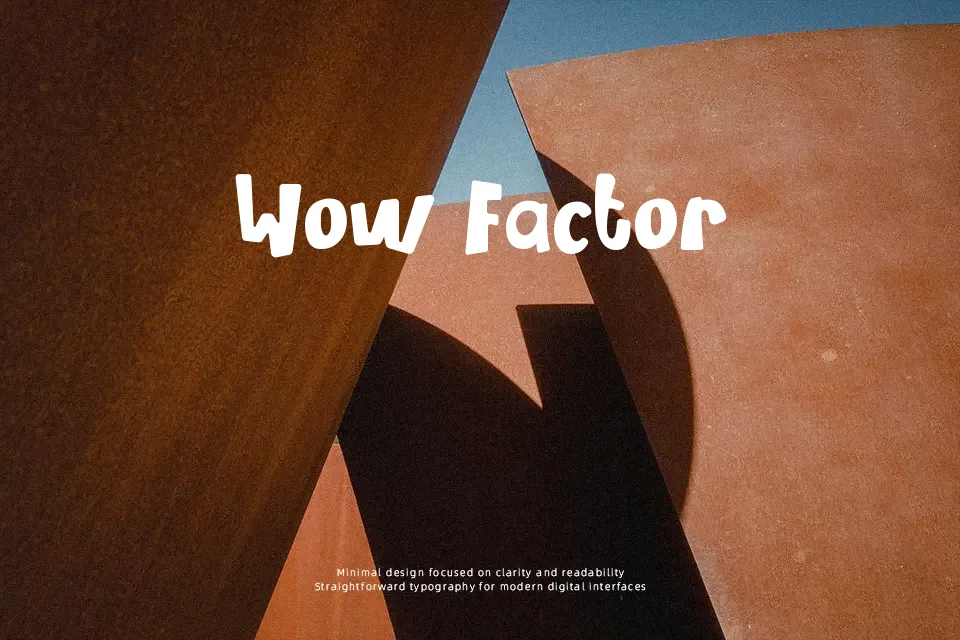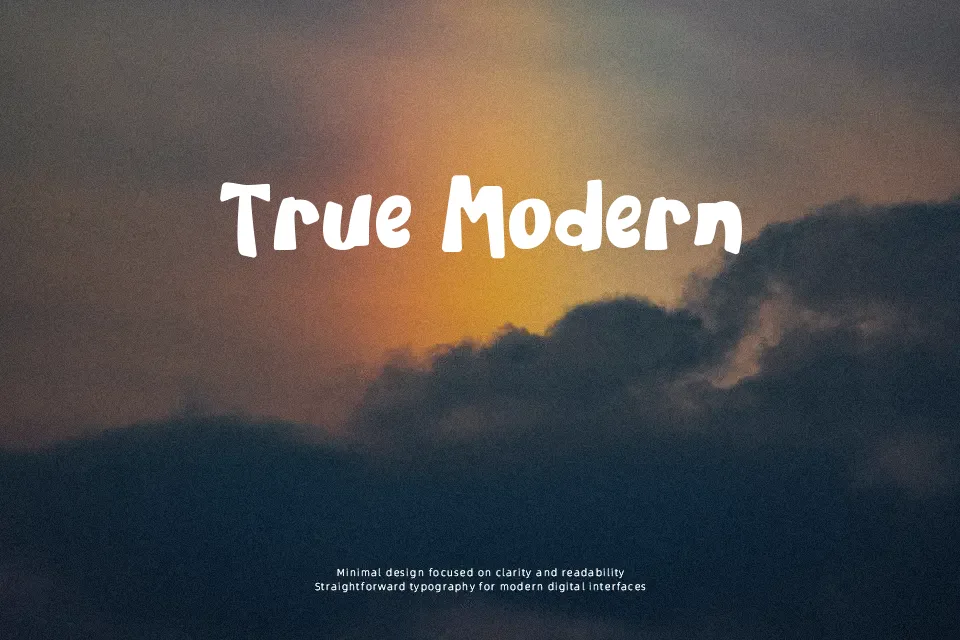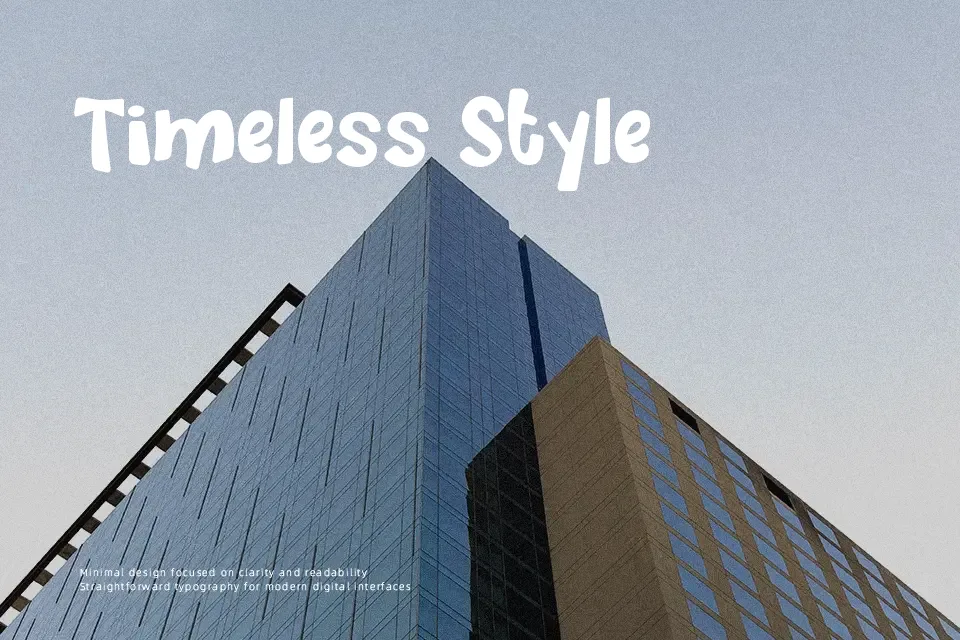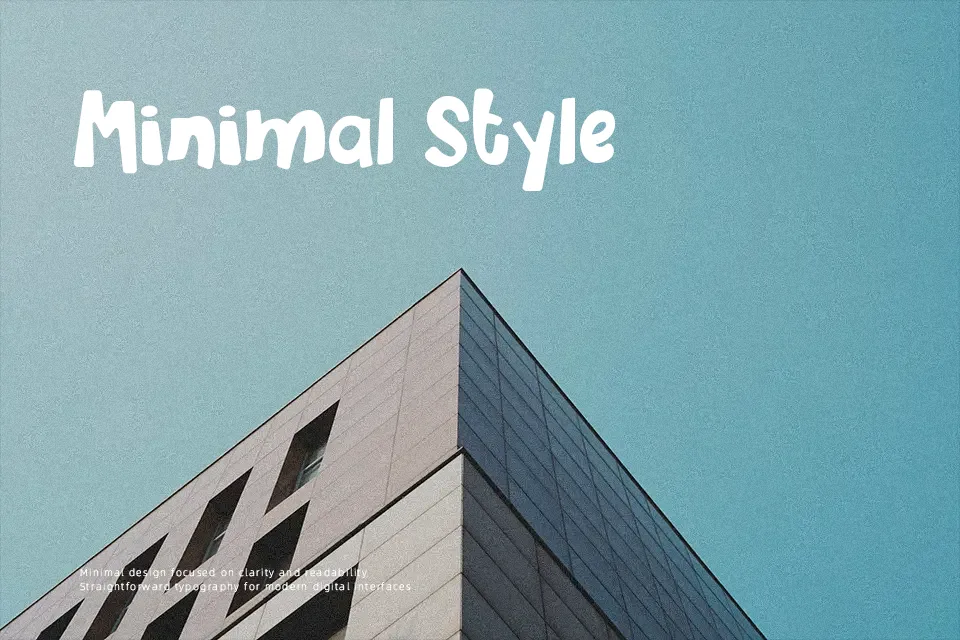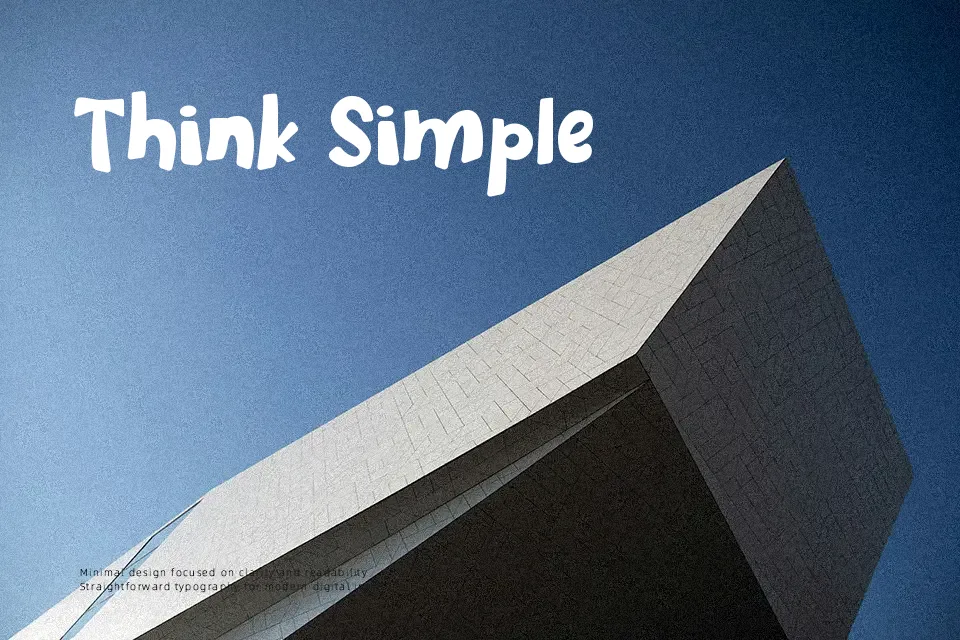
Savage Garden Font
Savage Garden Font delivers an energetic display presence marked by chunky strokes, softened terminals, and irregular bouncy baselines. The letterforms feature thick uniform line weights with subtly rounded corners, creating an approachable cartoon aesthetic across uppercase and lowercase sets. Proportions remain wide with comfortable spacing, allowing individual glyphs to stay clear and legible in short headline formats. However, the exaggerated decorative weight causes dense letter collisions when set at small sizes. The design performs exceptionally well for vibrant poster titles, game badges, and creative packaging, but continuous reading comfort drops quickly in editorial paragraphs.
children book covers,animated video titles,toy packaging labels,party flyers
continuous paragraph reading,dense editorial layouts,legal documentation,small caption text